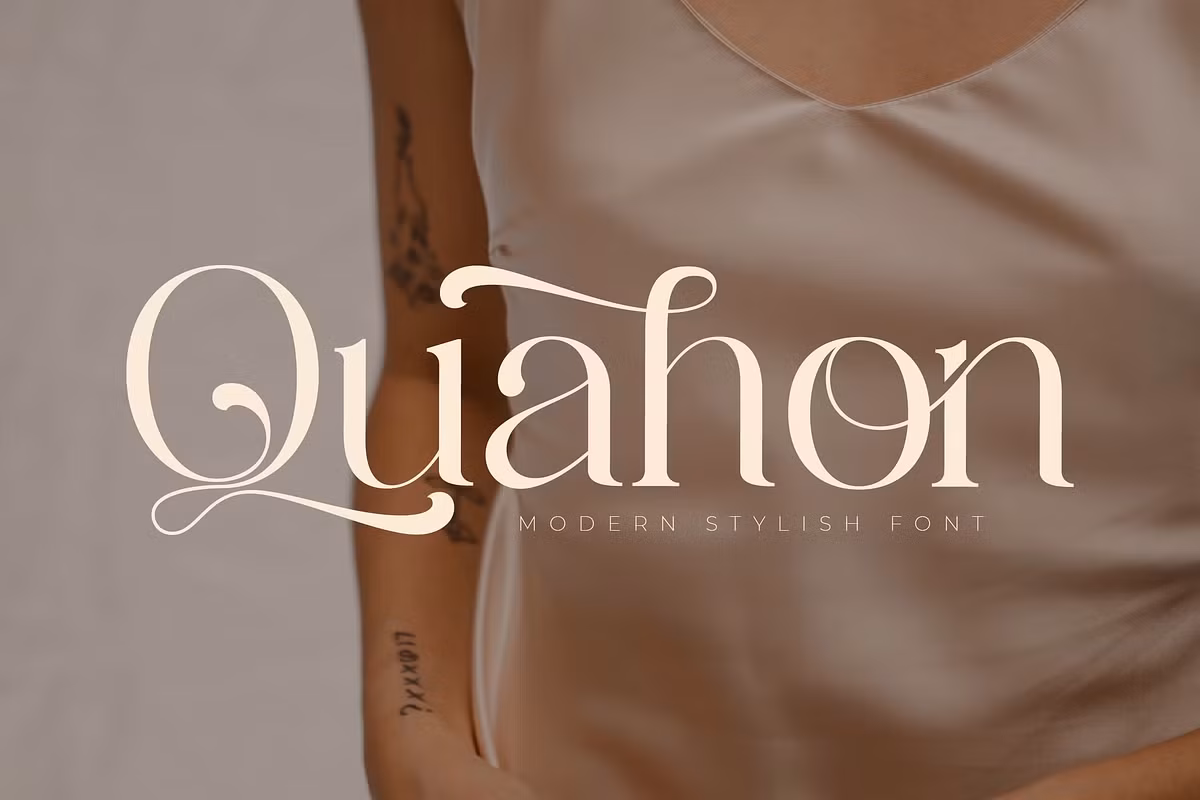
Quahon Modern Stylish Font Free Download
Quahon Modern Stylish Font Free Download is a sleek and sophisticated typeface that merges contemporary elegance with subtle artistic flair. Please note: you must purchase this font for commercial use, but you can test it through a free download. With its sharp serifs, balanced spacing, and fashion-forward curves, Quahon is perfect for branding, magazine titles, social media graphics, packaging, and luxurious web design.
Whether you're designing a minimalist logo or crafting a high-end editorial layout, Quahon Modern Stylish Font Free Download offers the perfect blend of modern class and visual interest. It’s ideal for creatives who value both function and form in their typography. Fully compatible with Adobe Illustrator, Photoshop, Canva, and more, this font integrates seamlessly into any design workflow. Download it today for personal use and elevate your next project with the stylish precision of Quahon.